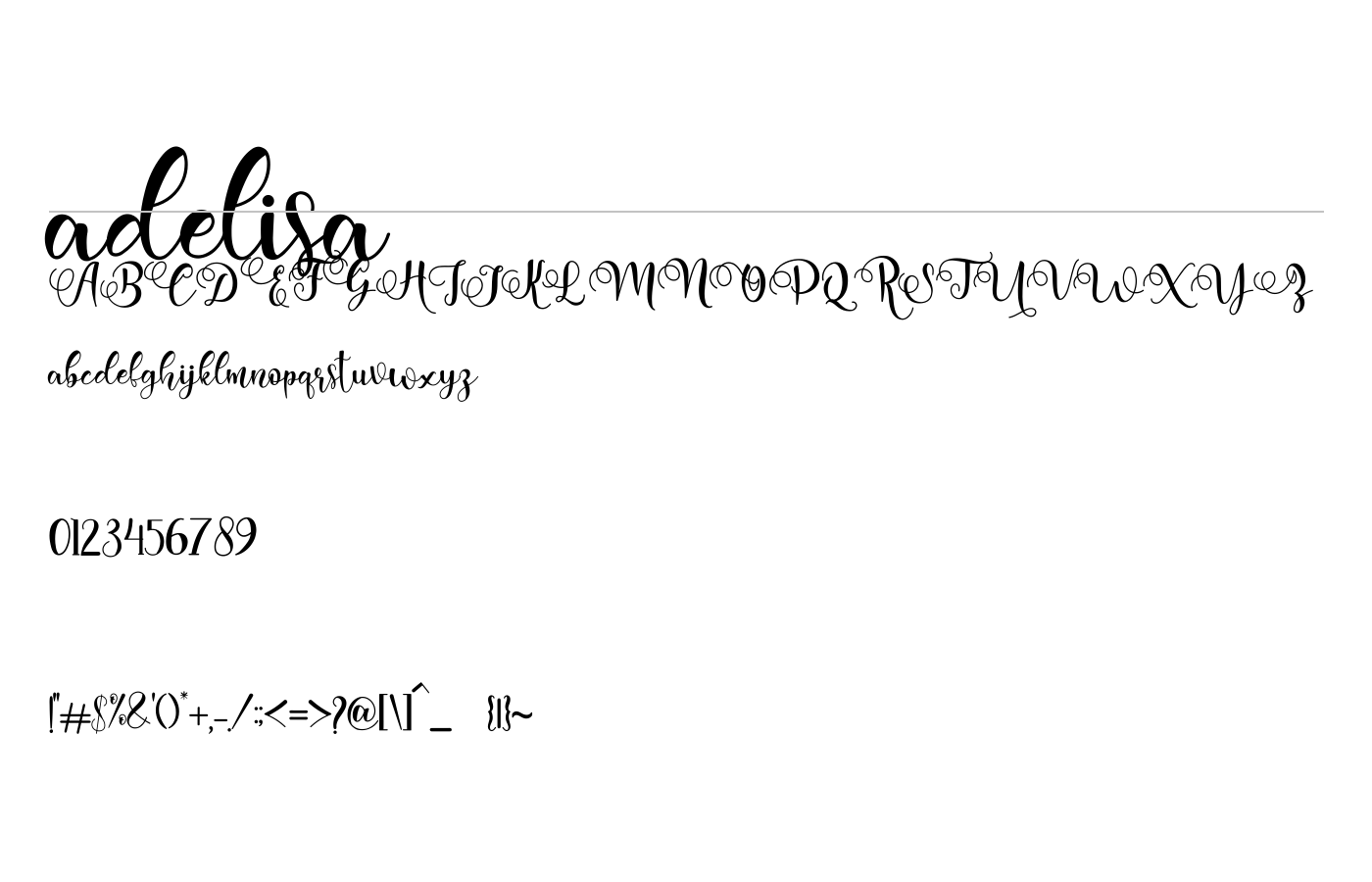
Adelisa is an elegant script font characterized by its flowing, calligraphic style with high contrast between thick and thin strokes. Its playful yet refined letterforms, featuring elaborate swashes and delicate curls especially in uppercase letters, make it perfect for feminine branding, wedding invitations, and luxury packaging. This font works best in headlines or decorative use where a touch of sophistication and charm is desired.
adelisa Font